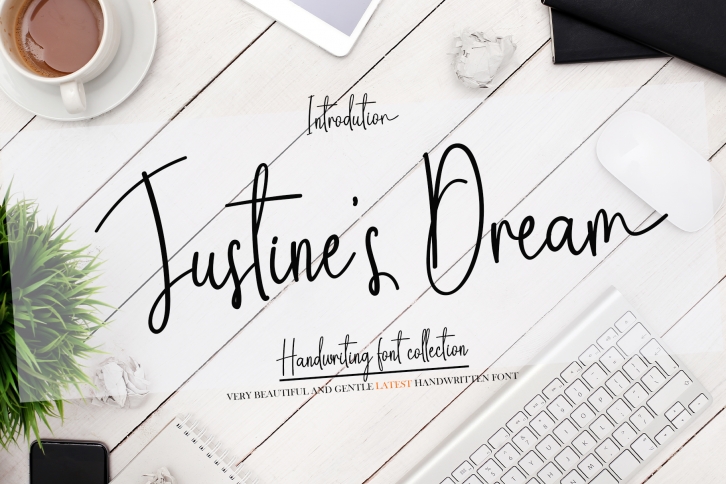
Justines Dream is a simple and adaptable handwritten font. You can successfully add this elegant font on wedding invitations, business cards, greetings cards, social media posts, wall art, and more.